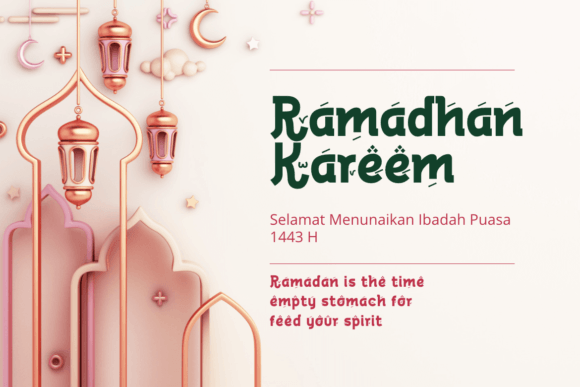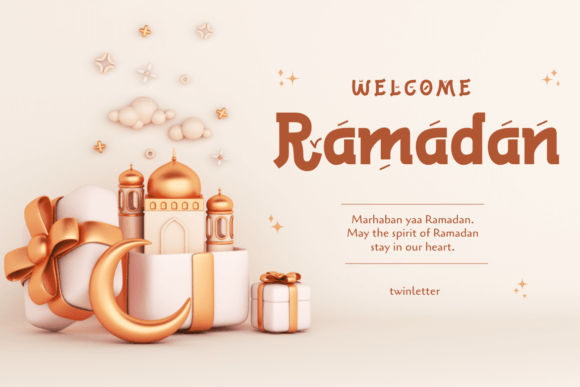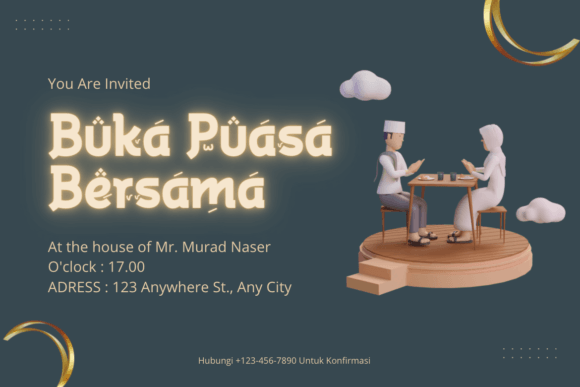
Introduction to Noytur Font
As a designer, there’s nothing quite like the thrill of discovering a new font that perfectly captures the essence of your creative vision. For me, it was the moment I stumbled upon the Noytur Font, a beautifully crafted typeface that seamlessly blends the intricate details of Arabic symbols with the clean lines of a sans-serif font.
The result is a stunning design resource that not only exudes Middle Eastern charm but also boasts exceptional readability. Whether you’re working on a branding project, crafting a poster art piece, or designing a greeting card, the Noytur Font is an invaluable addition to your toolkit.
What sets Noytur Font apart is its versatility, making it an ideal choice for a wide range of creative projects. With its high-quality design and transparent background, you can easily incorporate it into your designs, making it a must-have for any designer looking to elevate their work.
Key Features of Noytur Font
- High-quality, professional font perfect for creative projects, including graphic design and digital art.
- Unique, modern design with a transparent background, allowing for easy customization and blending with other design elements.
- Designed to be versatile and suitable for a wide range of creative projects, from logos and branding to typography and more.
Honest Review: Noytur Font
I recently had the chance to work with the Noytur Font, and I must say, it was a pleasant experience. As a designer, I’m always on the lookout for high-quality design resources that can elevate my creative projects. The Noytur Font did just that.
- ✨ Unique and modern design aesthetic: The Noytur Font has a distinctive look that can add a touch of sophistication to any project.
- ✨ Wide range of applications: This font is perfect for both digital and print projects, making it a versatile addition to any designer’s toolkit.
- ⚠️ Limited character set: The Noytur Font only includes a basic set of characters, which may not be suitable for projects that require a wide range of languages or special characters.
- ⚠️ Transparent background: The font’s transparent background can make it difficult to work with, especially when used with complex designs or backgrounds.
Overall, I’m impressed with the Noytur Font’s quality and versatility. While it may have some limitations, it’s a great addition to any designer’s toolkit, especially for free.
The Noytur Font is a high-quality design resource that offers a unique and creative touch to your projects. With its transparent background, you can easily customize and integrate it into your design without any hassle.
Tips for Getting the Most Out of Noytur Font
To get the most out of the Noytur Font, use it in combination with other design elements to create a cohesive and visually appealing design. Experiment with different font sizes, colors, and styles to add depth and interest to your project.
Common Use Cases for Noytur Font
The Noytur Font is ideal for creative projects that require a unique and eye-catching design. It’s perfect for logos, business cards, social media graphics, and any other design where you want to make a statement.